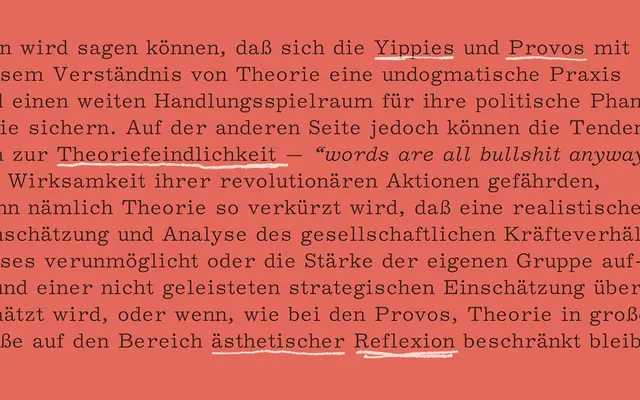
Dewey Decimal
Monokrom · Frode Helland · 2023
A six-style family derived from the Friden Justowriter's Documentary typeface, tracing a lineage through Excelsior back to nineteenth-century Ionic serifs.
Frode Helland draws on Documentary, a proportional typewriter font for the Friden Justowriter, itself descended from Chauncey Griffith's 1931 Excelsior and its low-contrast Didone tradition. The family runs across three weights with matching italics, preserving Documentary's characteristic open counters and the soaring roof of the lowercase 'a' while bringing contemporary detailing and technical scope. Vietnamese is included alongside Monokrom's standard character set, extending coverage to over 200 languages.
Rooted in the Neo-classical Didone tradition via Excelsior and its low-contrast Ionic/Clarendon interpretations, adapted through a proportional typewriter source (Friden Documentary) with large x-height, open counters and wide apertures.